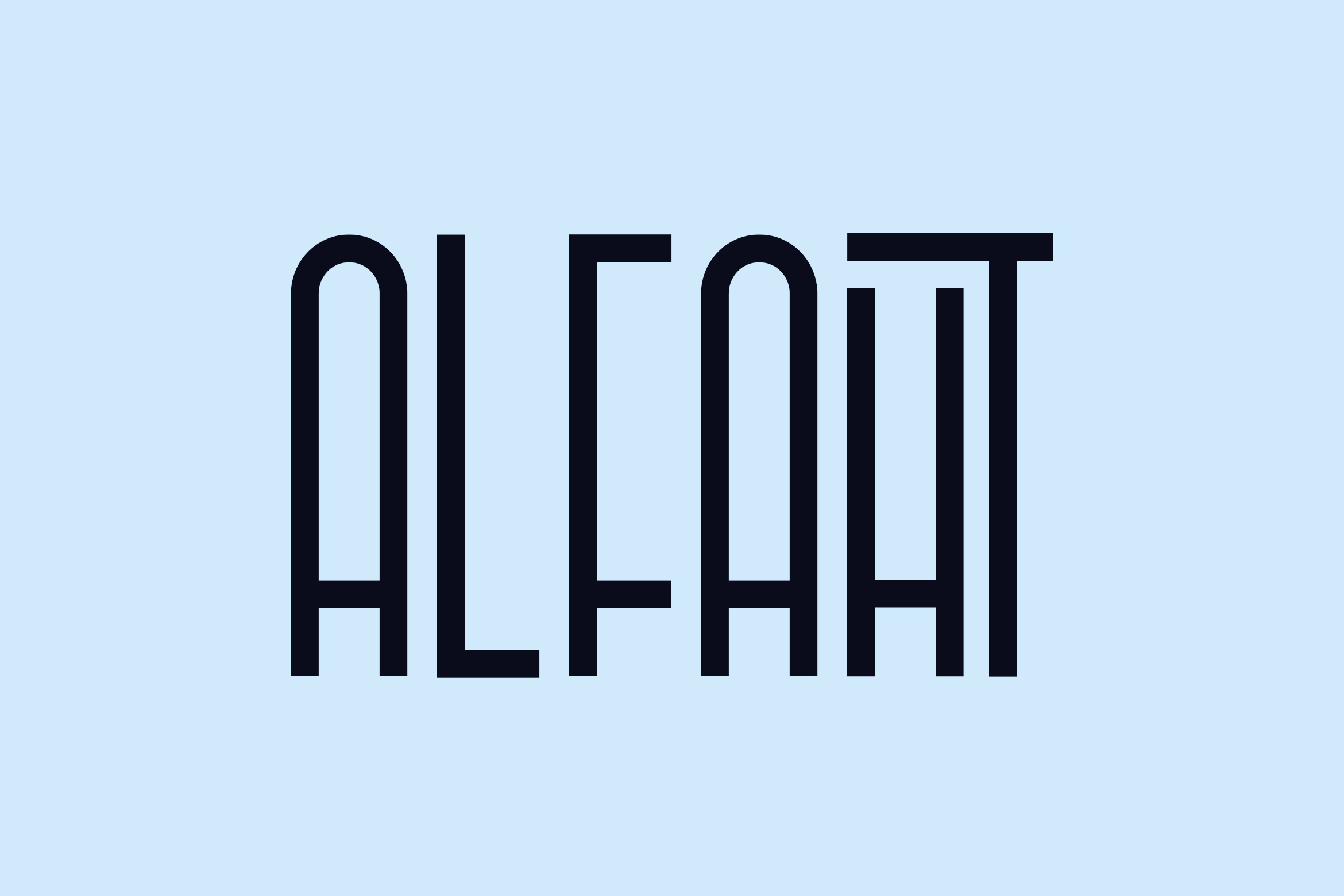
Kalliant Sans Font
Kalliant is sans serif font that can be used for various purposes such as logos, wedding invitations, t-shirts, letterheads, signage’s, labels, and much more!
- Tons of glyphs
- Ligature